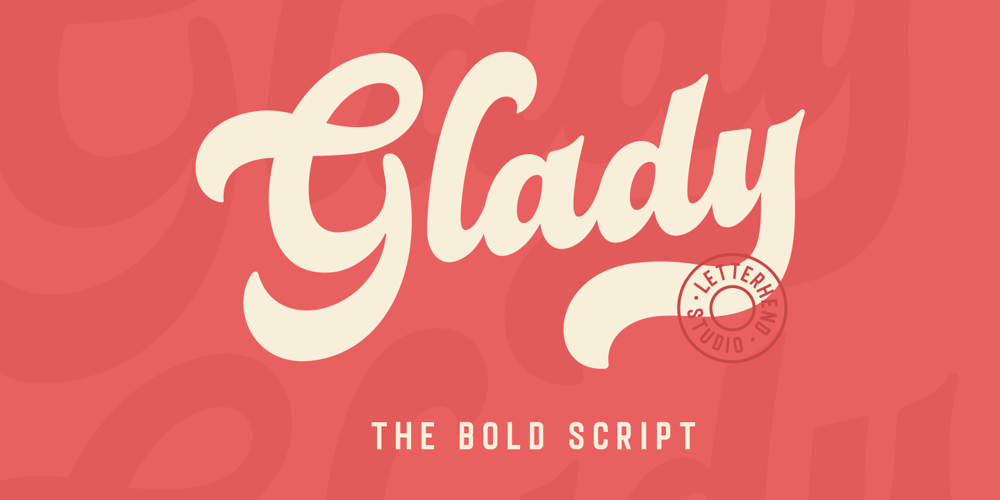
Glady Script Font Family was designed by Hendry Juanda and published by Letterhend. Glady Script contains 1 styles and family package options. Introducing, Glady – A bold script based with standout look. Added with swashes to make this font even more unique. This type of font perfectly made to be applied especially in wedding invitation, labels, logos, magazines, books, greeting / wedding cards, packaging, fashion, make up, stationery, novels, labels or any type of advertising purpose.Features : uppercase & lowercase numbers and punctuation multilingual swash and ligature alternates PUA encoded We highly recommend using a program that supports OpenType features and Glyphs panels like many of Adobe apps and Corel Draw, so you can see and access all Glyph variations.